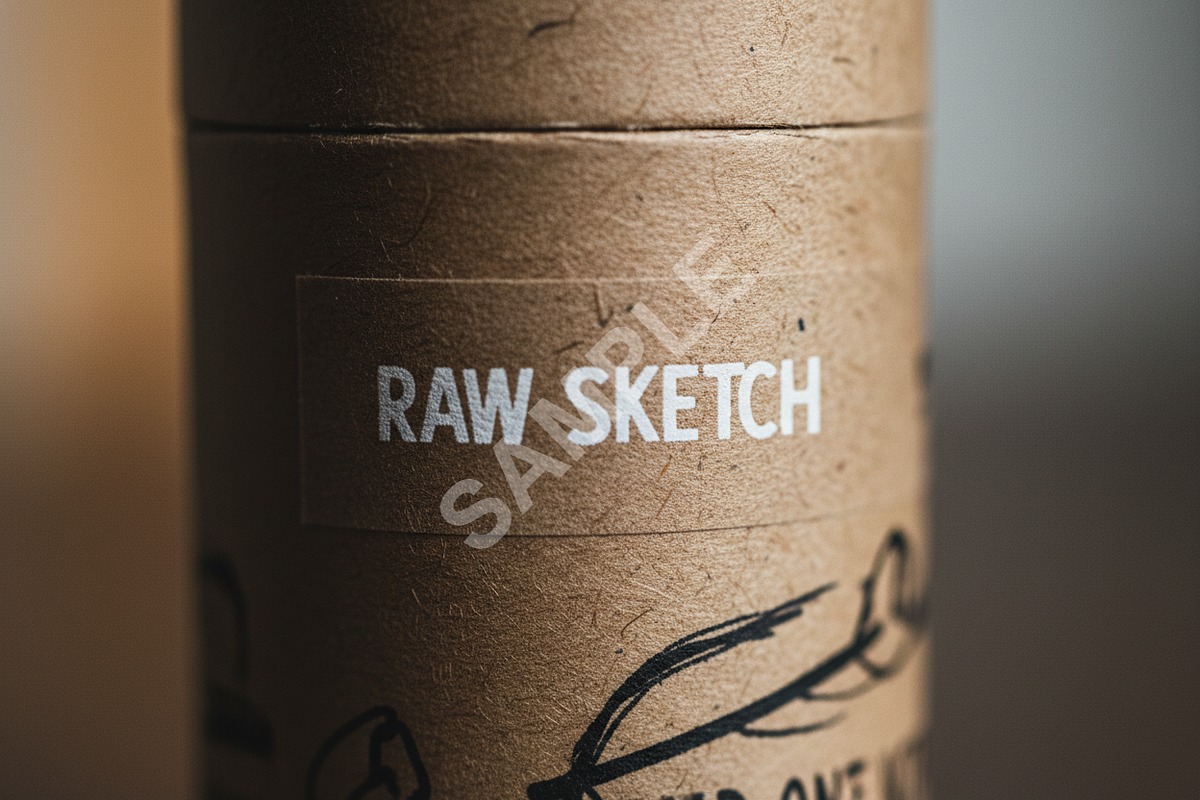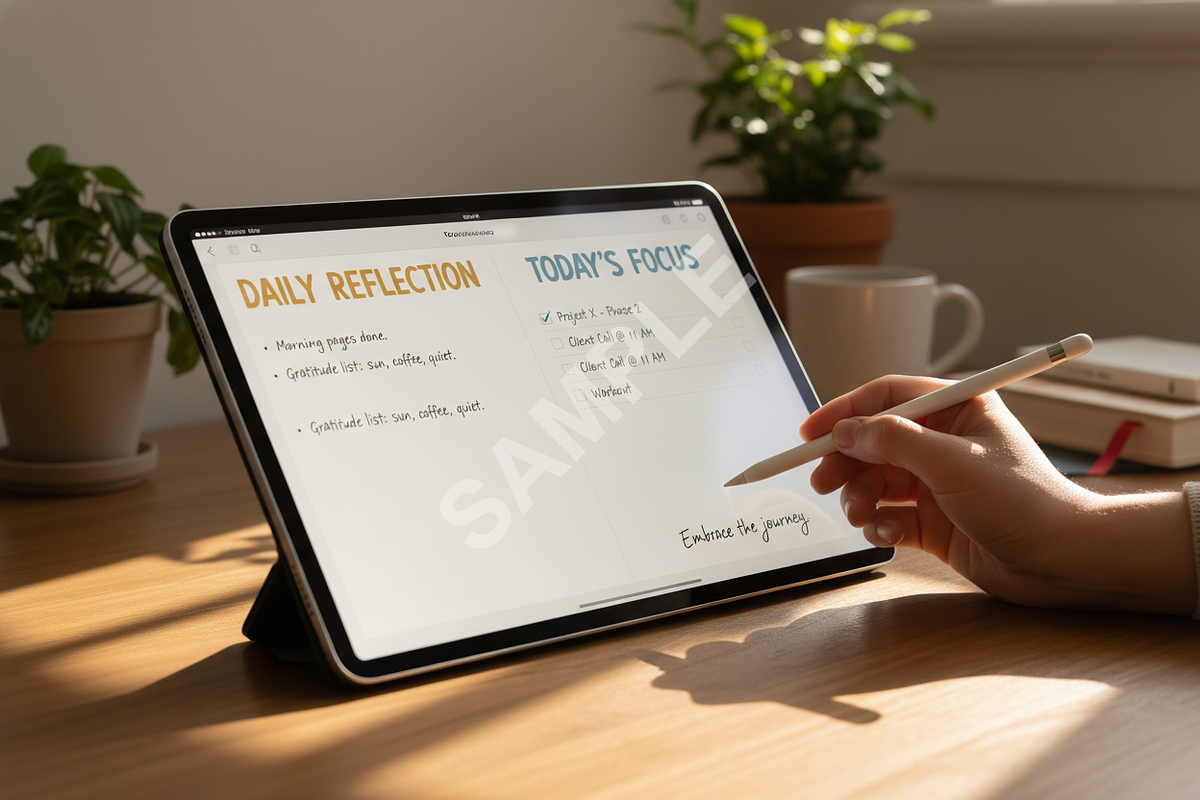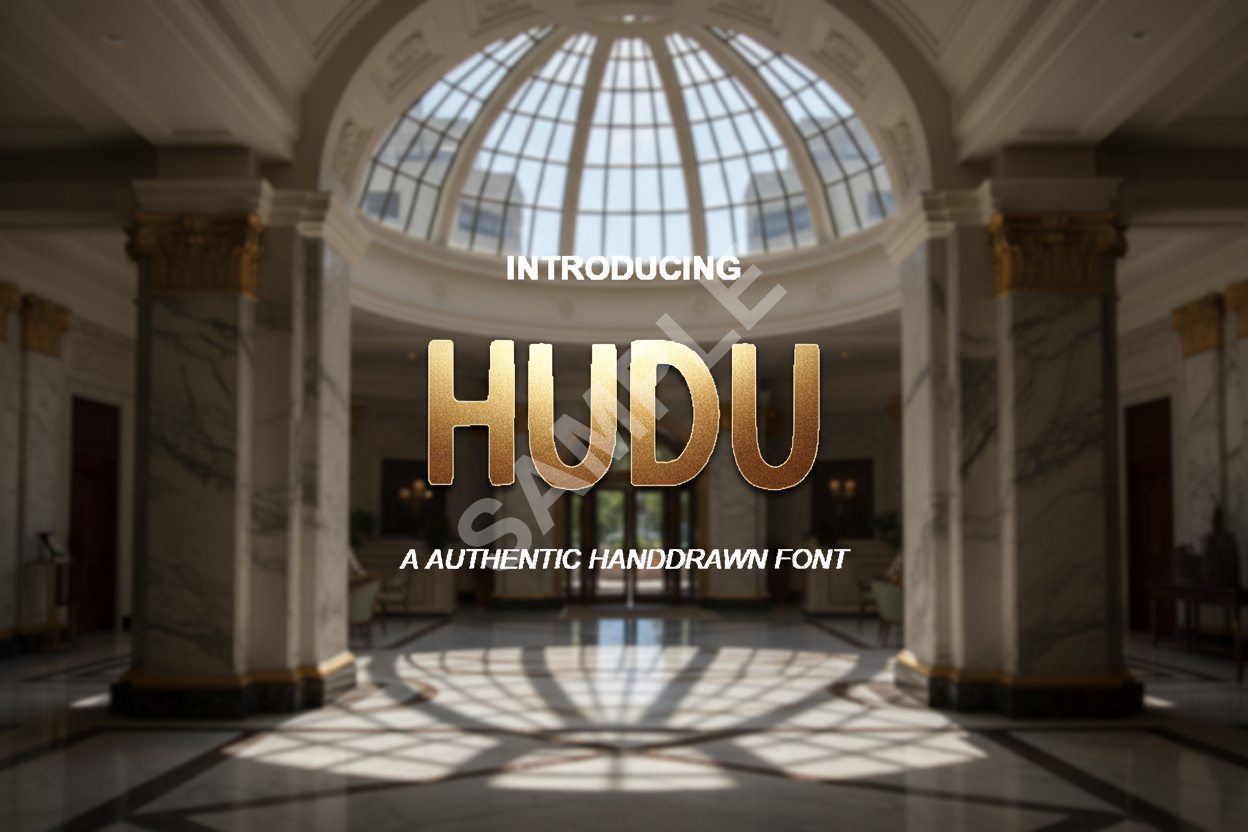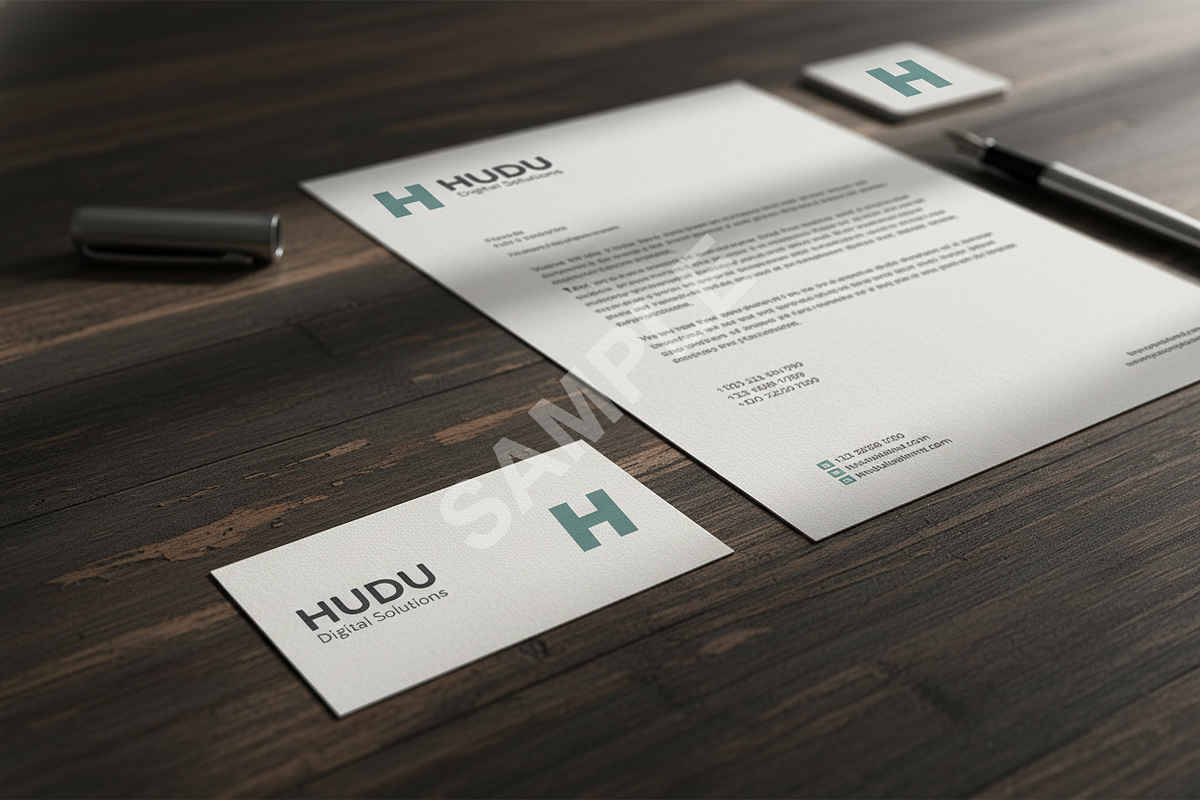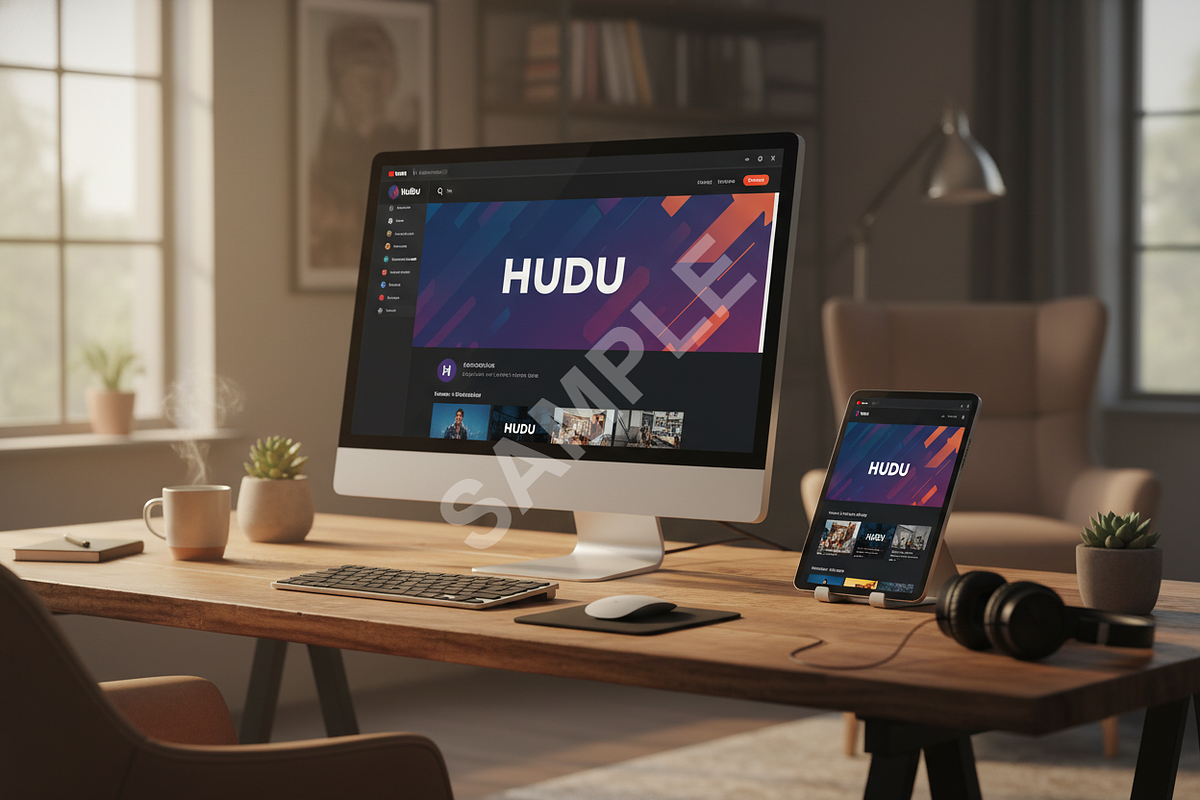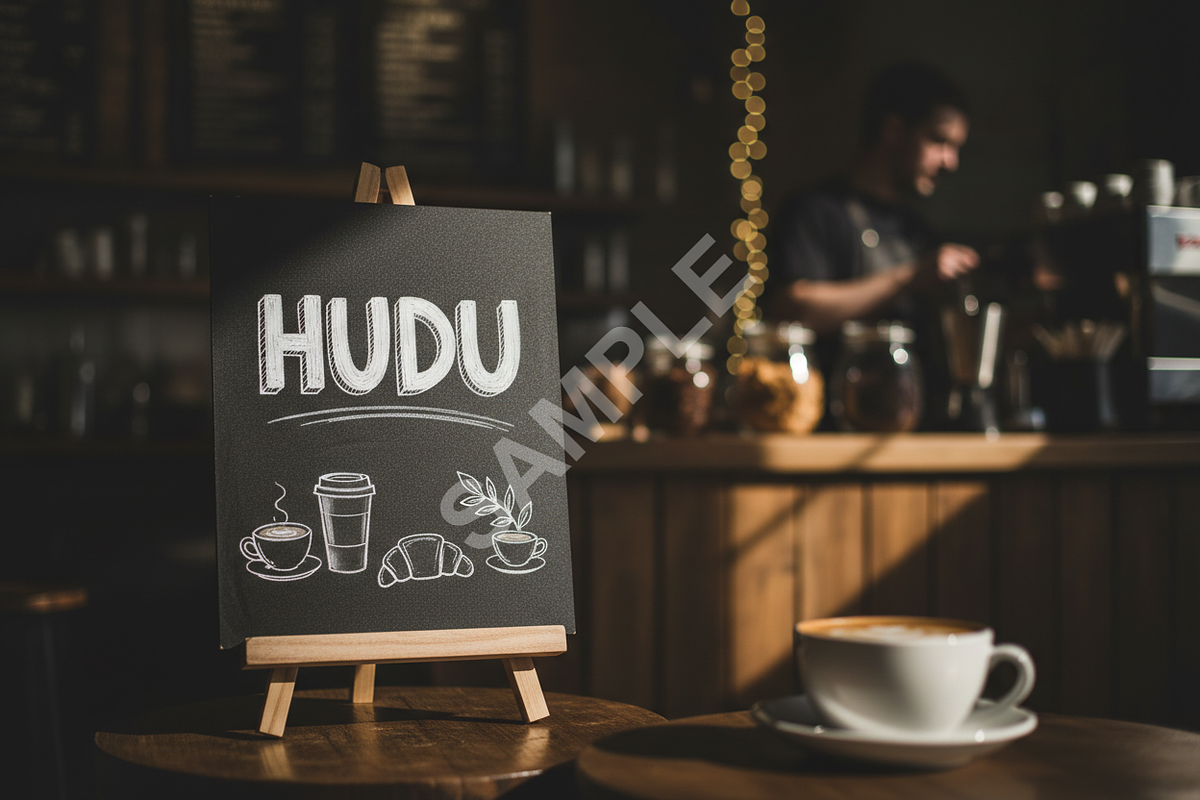
Hudu | Elegant Modern Serif Typeface
Introduction Introducing Hudu, a masterfully crafted serif typeface that embodies the essence of modern luxury. Designed with a perfect balance of sharp contrast and delicate curves, Hudu is the definitive choice for designers looking to elevate their visual storytelling. It is specifically tailored for luxury branding, high-end editorial layouts, and sophisticated social media presence.
- Elegant high-contrast strokes for a premium feel
- Sophisticated character set with unique alternates and ligatures
- Full multilingual support for global projects
- Optimized for both high-resolution print and digital displays
- Timeless aesthetic suitable for fashion, beauty, and lifestyle brands